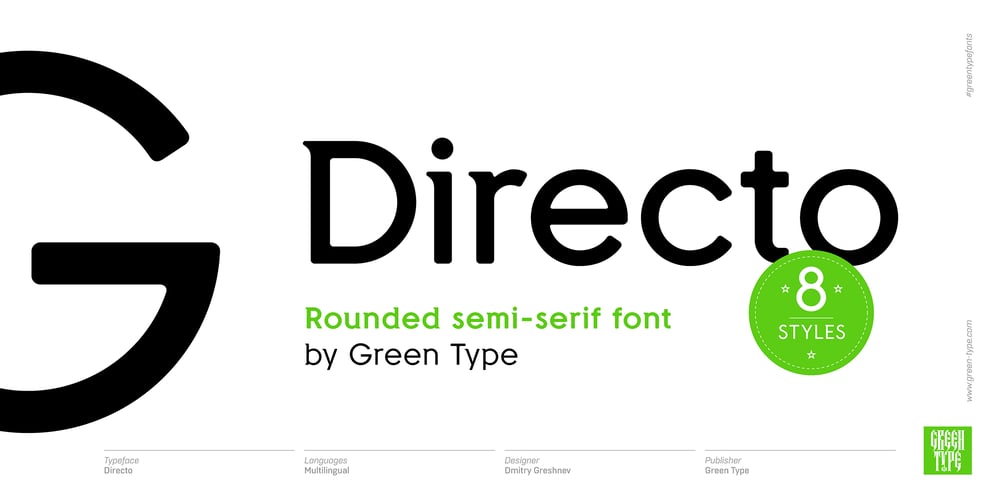
Directo
Directo font
Directo Font Family was designed by Dmitry Greshnev and published by Green Type. Directo contains 8 styles and family package options. Directo is rounded semi serif font. Directo was designed by Dmitry Greshnev and published by Green Type. Directo contains 8 styles and family package options.